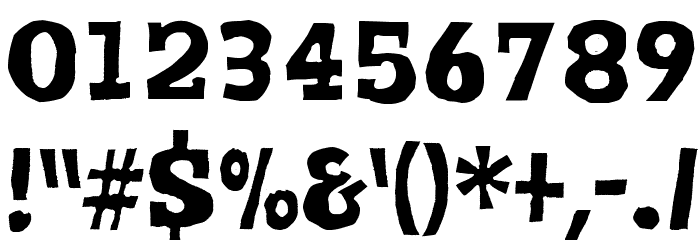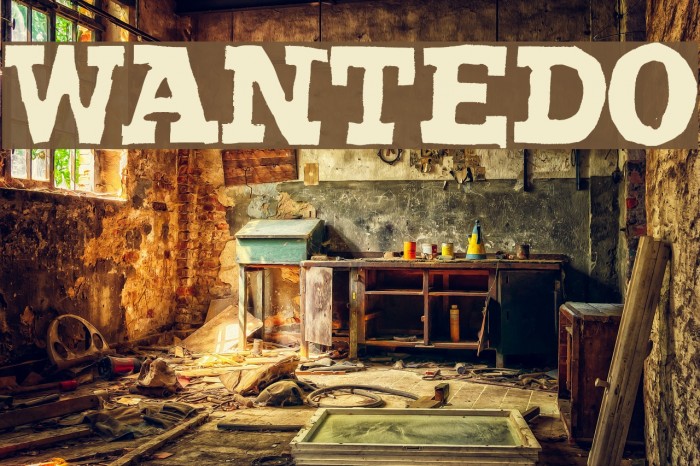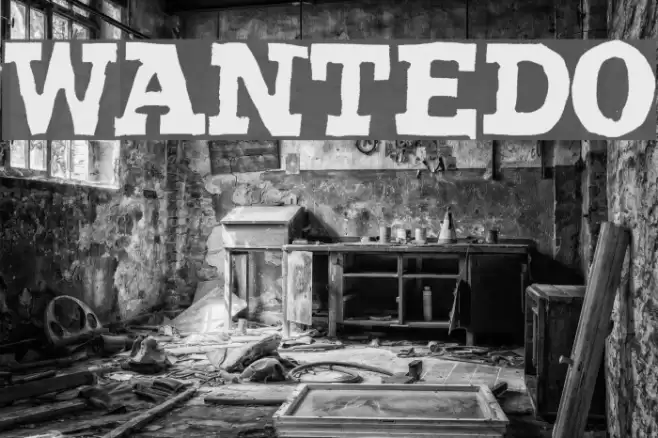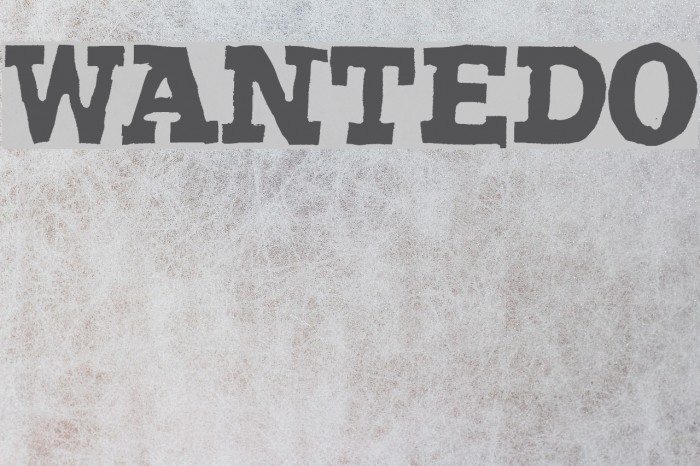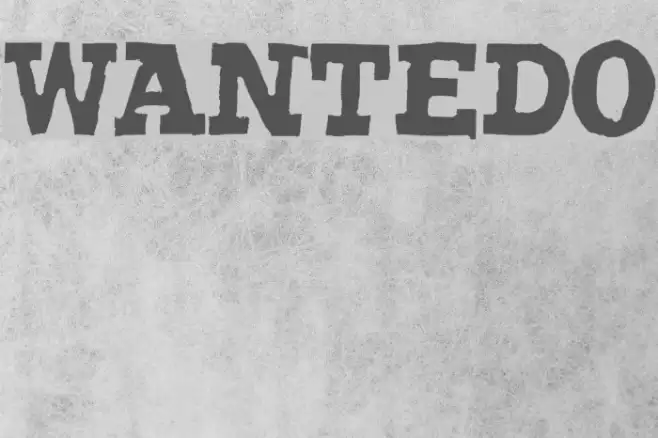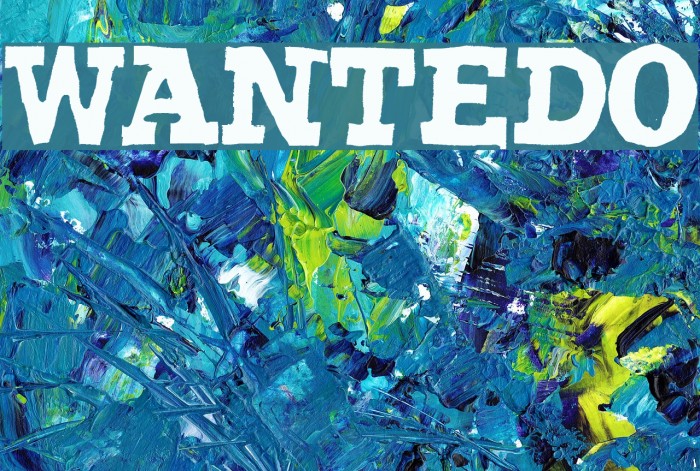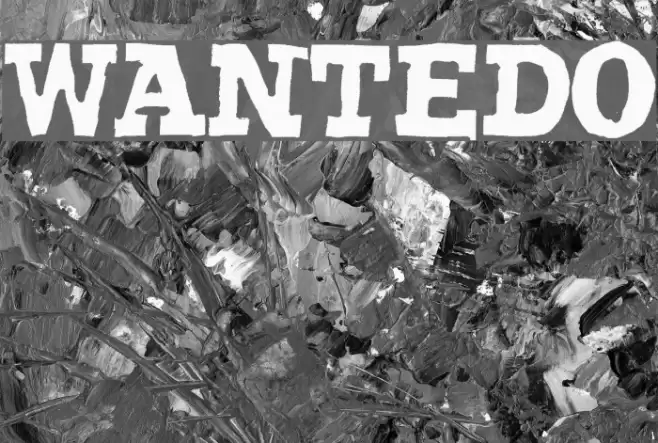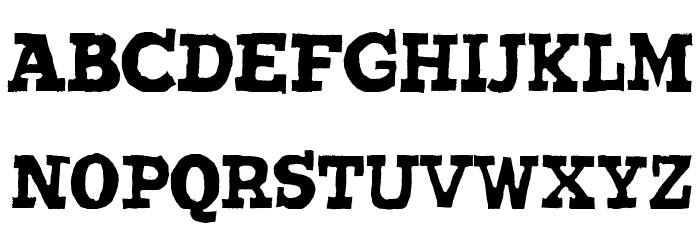
Wantedo Font
Wantedo Description
This font features a bold, rugged style with a distinctly vintage and western feel. The characters are heavily weighted with a distressed texture, giving them an aged, worn appearance. The uppercase letters are prominent and commanding, while the lowercase letters maintain the same boldness, ensuring consistency across the typeface. Numbers and special characters follow the same design ethos, making them suitable for thematic designs. The font's overall aesthetic is reminiscent of old wanted posters or signage from the Wild West, making it ideal for projects that require a touch of nostalgia or rugged charm.
| Proposed Projects | Ideal for vintage-themed posters, western-style branding, rustic signage, and event invitations. |